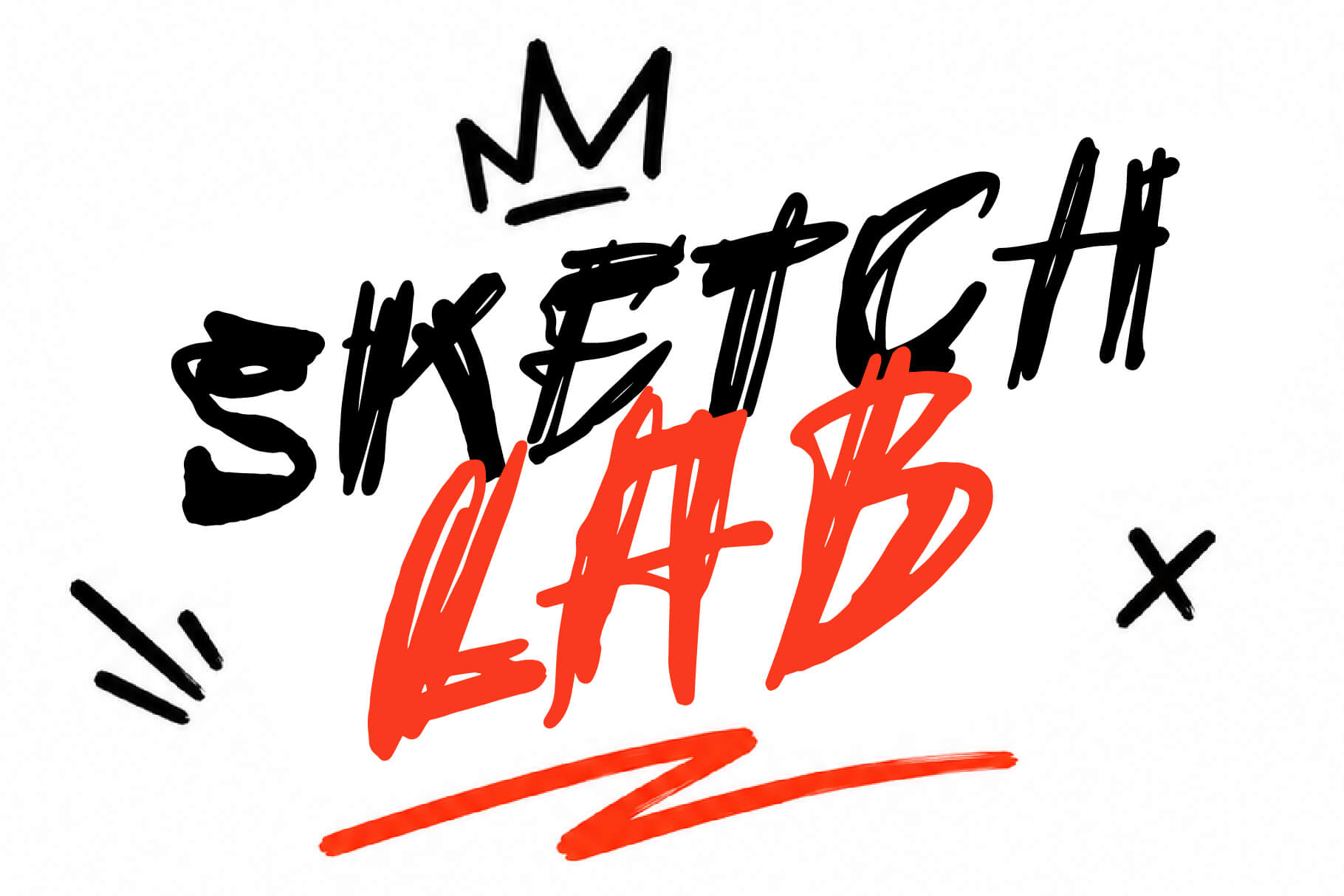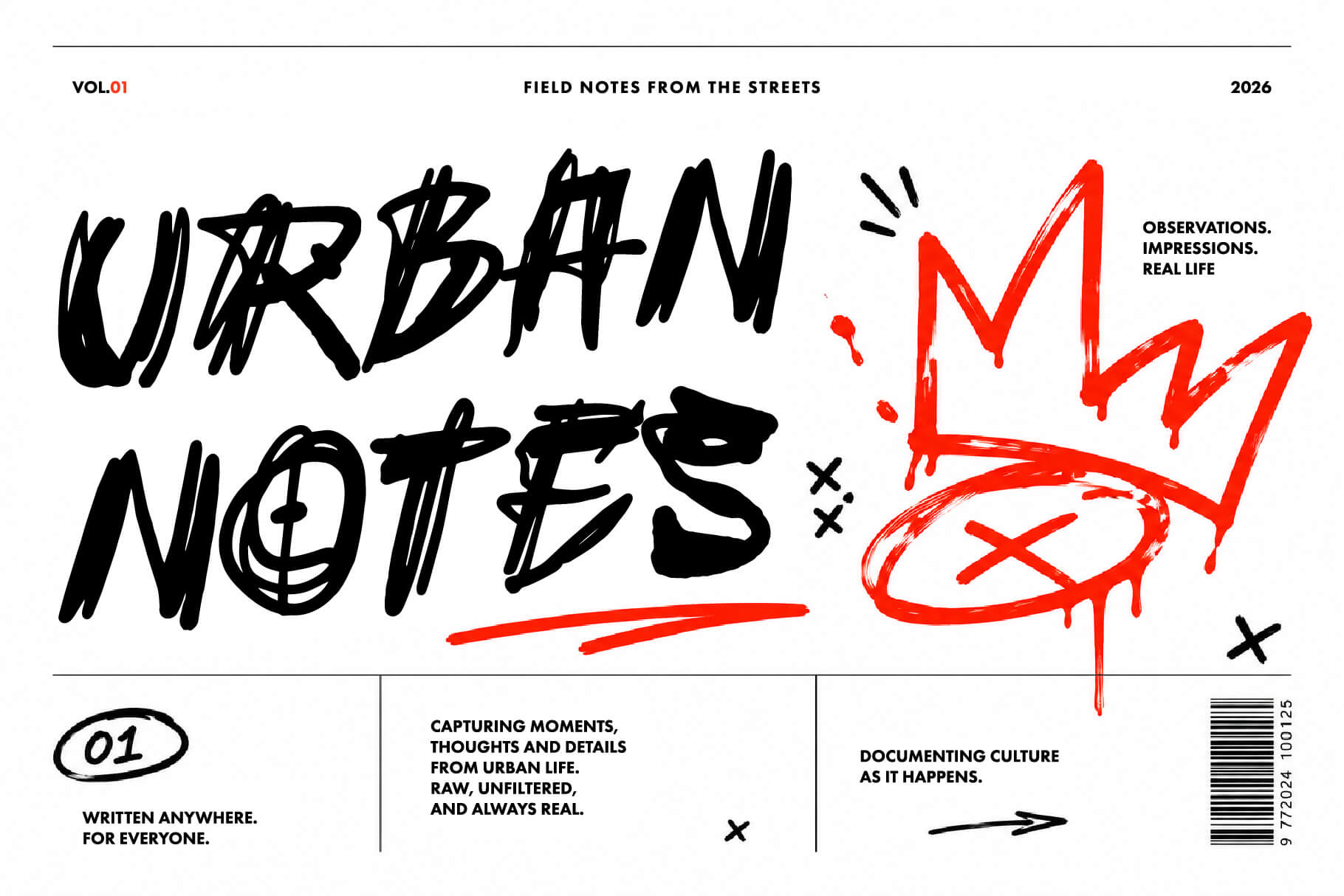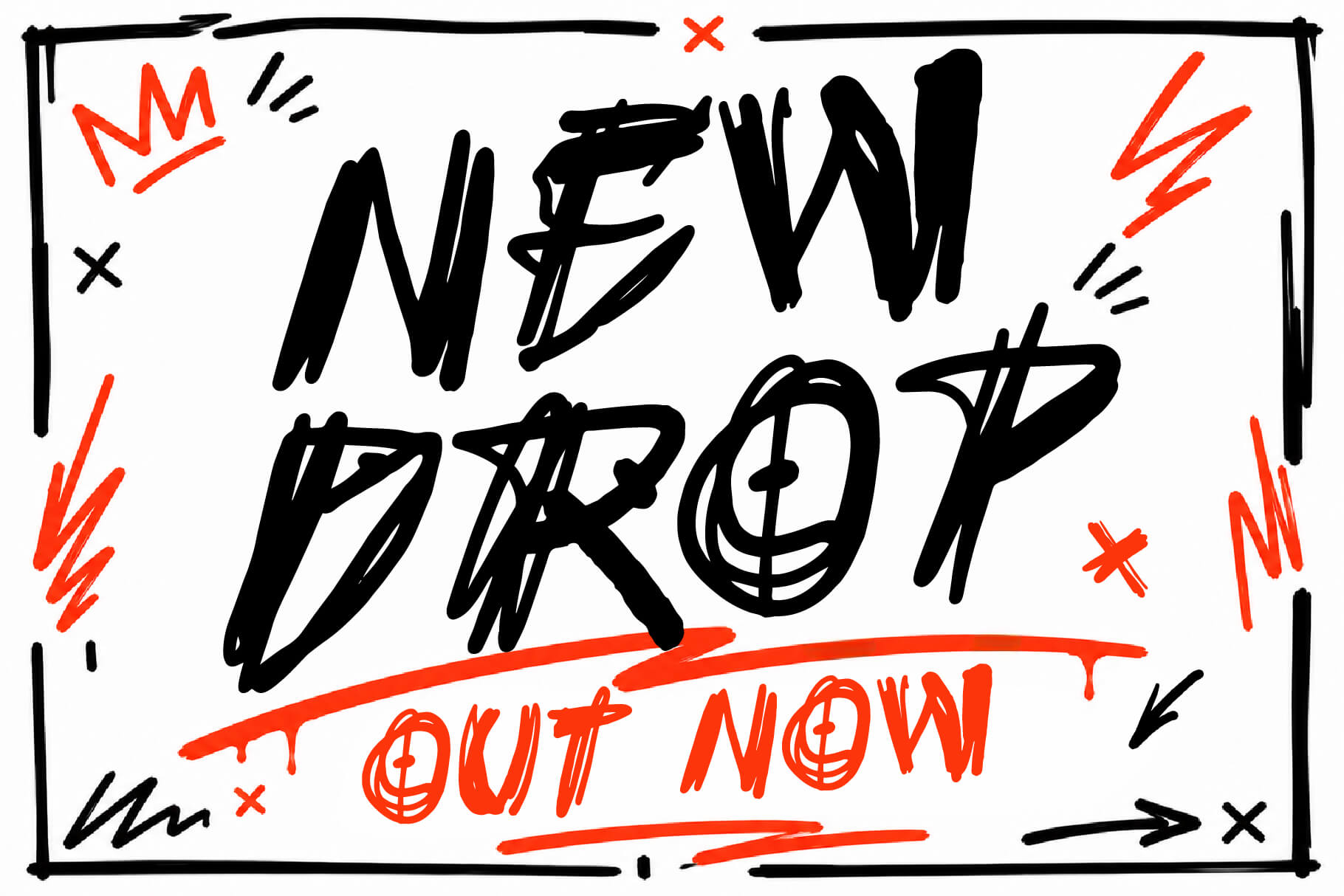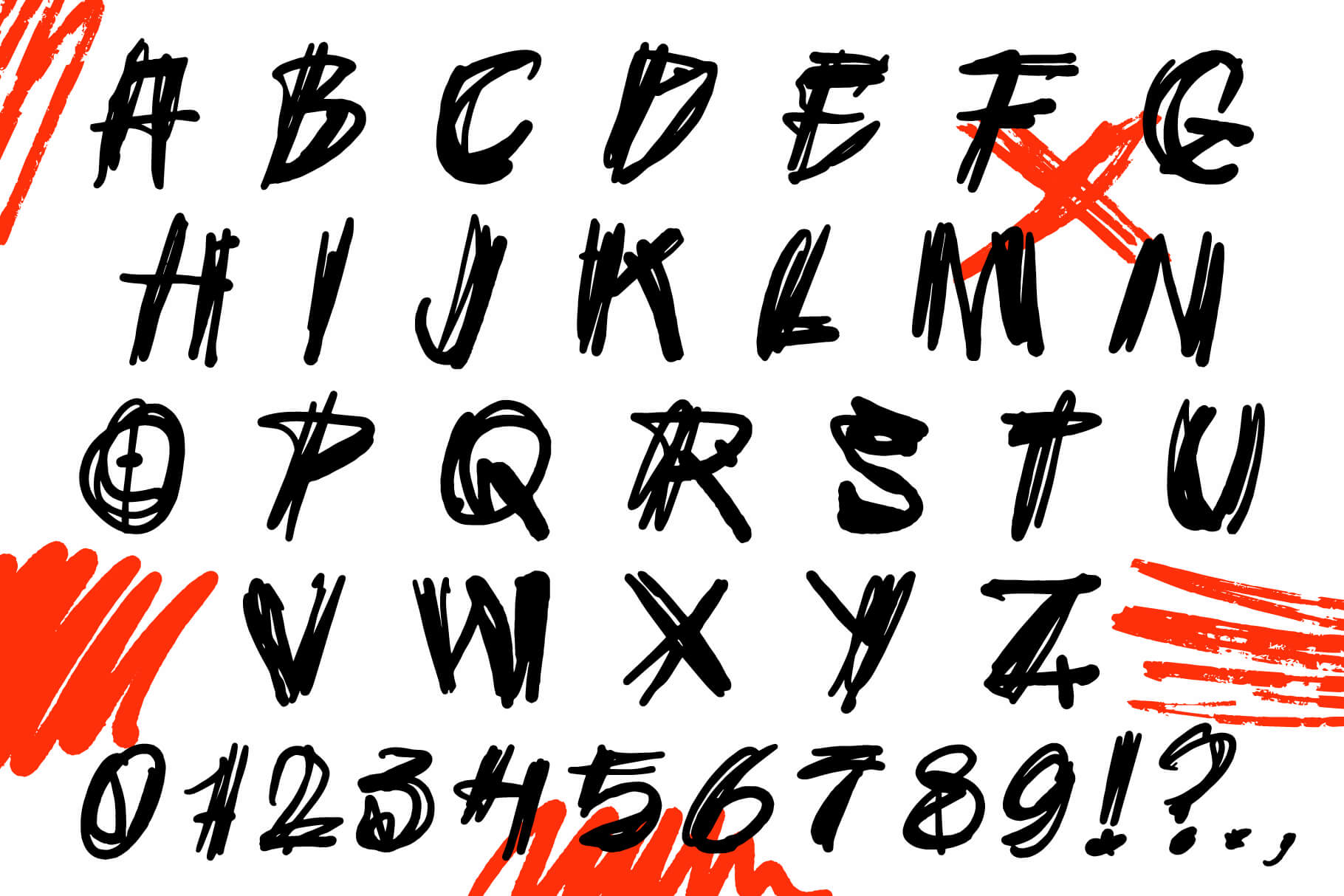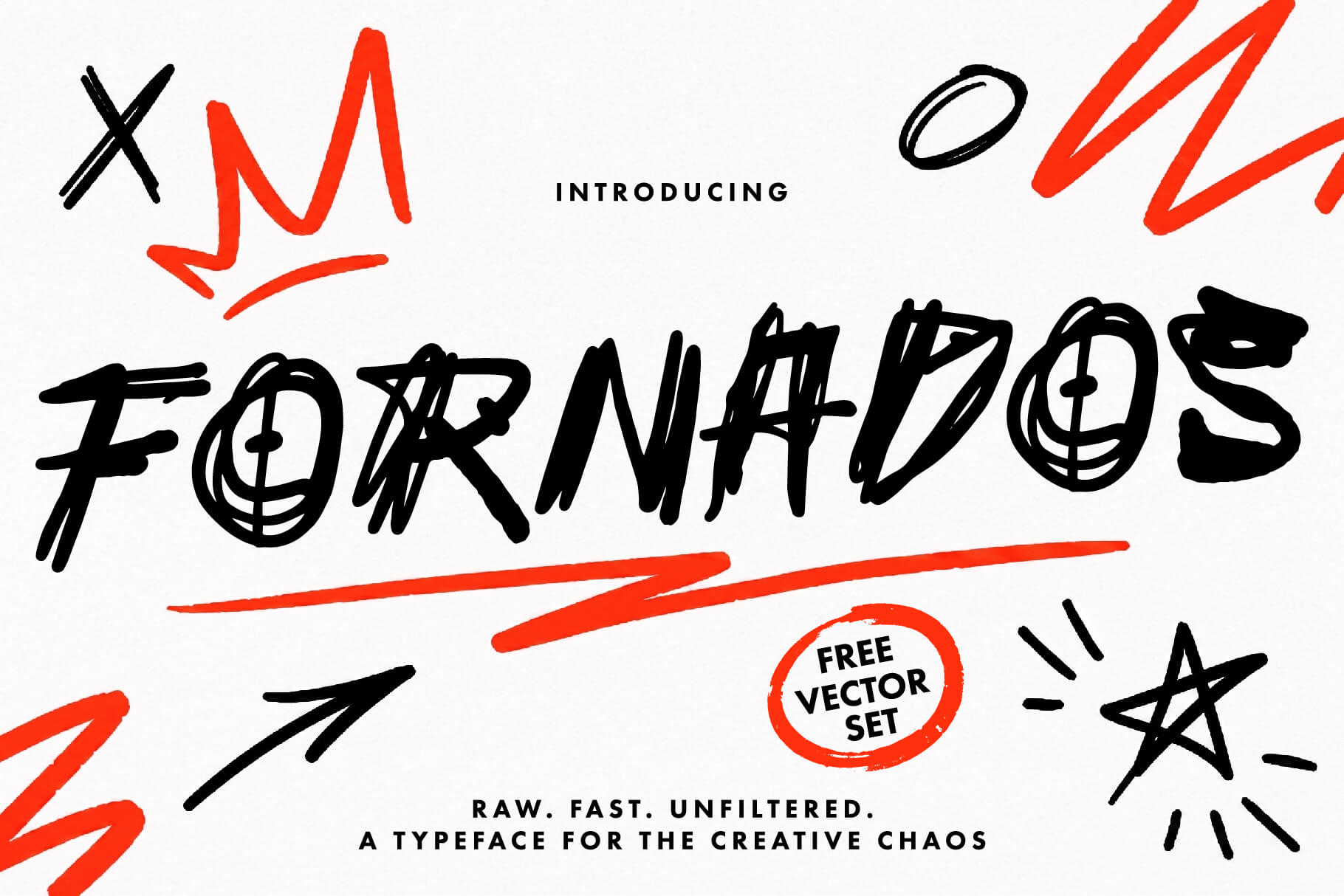
FORNADOS display font
FORNADOS is a bold, high-impact display typeface built for loud, energetic statements.
Its aggressive, condensed letterforms and sharp contrasts give designs a powerful industrial edge, while staying highly legible at large sizes.
The face keeps a raw, confident personality that cuts through noise and commands attention.
FORNADOS works especially well for sports and streetwear branding, posters, packaging and bold headlines.
IDEAL FOR
– Sports and streetwear branding
– Posters and covers
– Packaging and labels
– Logos and headlines
– Social media visuals